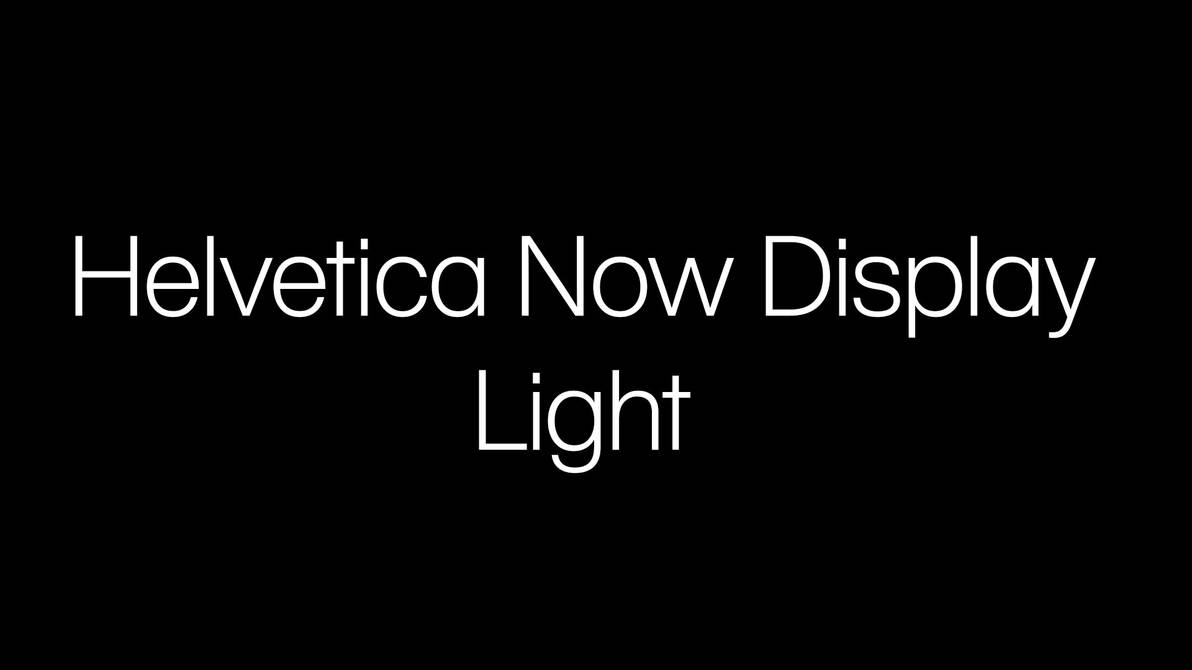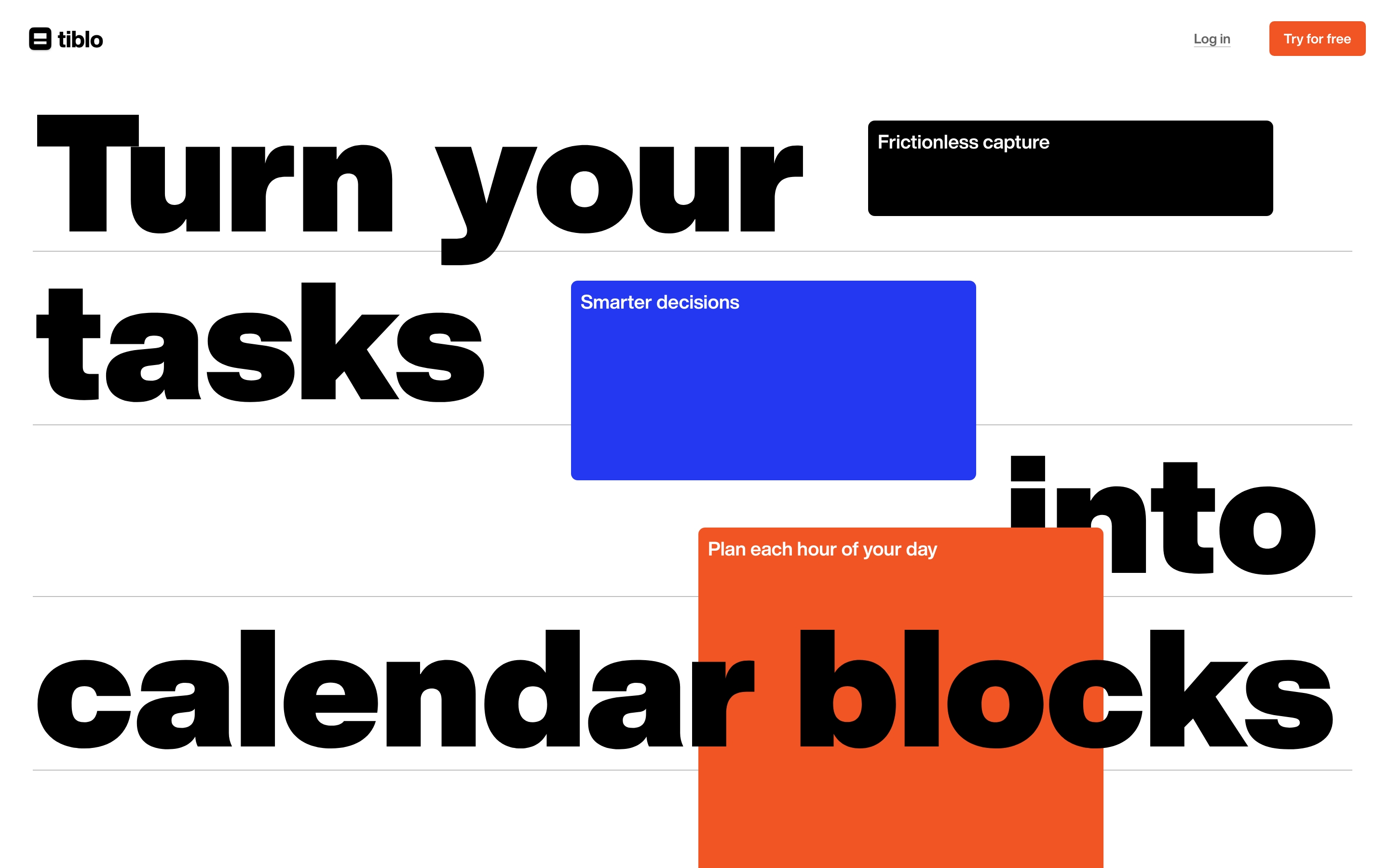
Helvetica Now Display font . Helvetica now font family was designed by max miedinger, charles nix, monotype design. Available in three optical sizes— micro, text, and display —every character in helvetica now has. Helvetica® now ist ein neues kapitel in der geschichte der bekanntesten schrift der welt. Erhältlich in drei optischen größen, micro, text und. Helvetica now font is a simple, clean font family created by monotype with a modern design and remarkable appearance. Available in three optical sizes— micro, text,. Complete family of 96 fonts: Every single glyph of helvetica has been redrawn and redesigned for this expansive new edition. sites using the typeface helvetica now with personal recommendations for similar web fonts, suggested font pairings and the closest free alternative.
Helvetica now font family was designed by max miedinger, charles nix, monotype design. Every single glyph of helvetica has been redrawn and redesigned for this expansive new edition. Erhältlich in drei optischen größen, micro, text und. Helvetica® now ist ein neues kapitel in der geschichte der bekanntesten schrift der welt. Available in three optical sizes— micro, text,. Complete family of 96 fonts: Available in three optical sizes— micro, text, and display —every character in helvetica now has. sites using the typeface helvetica now with personal recommendations for similar web fonts, suggested font pairings and the closest free alternative. Helvetica now font is a simple, clean font family created by monotype with a modern design and remarkable appearance.
Helvetica Now Display font sites using the typeface helvetica now with personal recommendations for similar web fonts, suggested font pairings and the closest free alternative. sites using the typeface helvetica now with personal recommendations for similar web fonts, suggested font pairings and the closest free alternative. Available in three optical sizes— micro, text, and display —every character in helvetica now has. Complete family of 96 fonts: Erhältlich in drei optischen größen, micro, text und. Helvetica now font is a simple, clean font family created by monotype with a modern design and remarkable appearance. Helvetica® now ist ein neues kapitel in der geschichte der bekanntesten schrift der welt. Available in three optical sizes— micro, text,. Helvetica now font family was designed by max miedinger, charles nix, monotype design. Every single glyph of helvetica has been redrawn and redesigned for this expansive new edition.
Helvetica Now, la nouvelle version de la typographie légendaire adaptée Helvetica Now Display font Available in three optical sizes— micro, text, and display —every character in helvetica now has. Helvetica now font family was designed by max miedinger, charles nix, monotype design. Helvetica now font is a simple, clean font family created by monotype with a modern design and remarkable appearance. Available in three optical sizes— micro, text,. Every single glyph of helvetica has. Helvetica Now Display font.
Helvetica Now For A World That Needs Helvetica Always HOW Design Helvetica Now Display font Helvetica now font family was designed by max miedinger, charles nix, monotype design. Complete family of 96 fonts: Helvetica now font is a simple, clean font family created by monotype with a modern design and remarkable appearance. Available in three optical sizes— micro, text,. Erhältlich in drei optischen größen, micro, text und. sites using the typeface helvetica now with personal. Helvetica Now Display font.
Helvetica Now Display Bold by HammerBro101 on DeviantArt Helvetica Now Display font Complete family of 96 fonts: Erhältlich in drei optischen größen, micro, text und. Helvetica® now ist ein neues kapitel in der geschichte der bekanntesten schrift der welt. Available in three optical sizes— micro, text, and display —every character in helvetica now has. Helvetica now font is a simple, clean font family created by monotype with a modern design and remarkable. Helvetica Now Display font.
Identifont Helvetica Now Display Bold Helvetica Now Display font Helvetica now font family was designed by max miedinger, charles nix, monotype design. Available in three optical sizes— micro, text,. Erhältlich in drei optischen größen, micro, text und. Available in three optical sizes— micro, text, and display —every character in helvetica now has. Helvetica® now ist ein neues kapitel in der geschichte der bekanntesten schrift der welt. Helvetica now font. Helvetica Now Display font.
Identifont Helvetica Now Display font sites using the typeface helvetica now with personal recommendations for similar web fonts, suggested font pairings and the closest free alternative. Helvetica now font is a simple, clean font family created by monotype with a modern design and remarkable appearance. Every single glyph of helvetica has been redrawn and redesigned for this expansive new edition. Erhältlich in drei optischen größen,. Helvetica Now Display font.